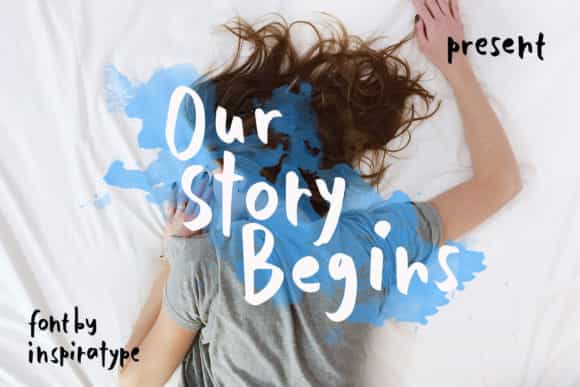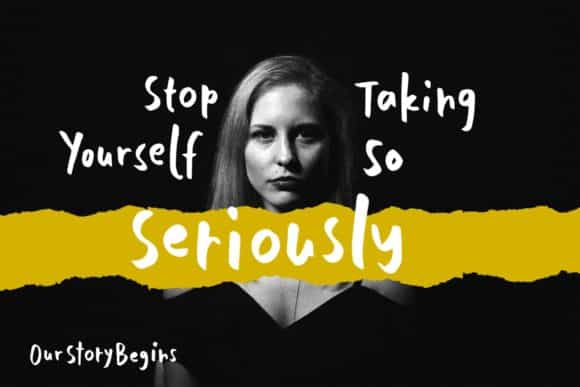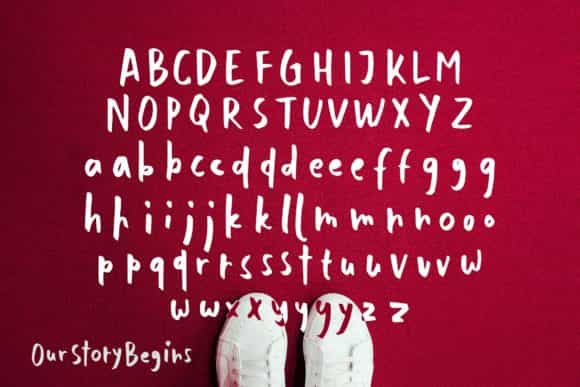
Our Story Begins is a display font that is hand drawn. Inspired by vintage posters. It also has uppercase and lowercase letters numerals, punctuation, and OpenType alternates, ligatures, swashes to assist in the customisation of your designs. For applying on logos, letterheads, posters, clothing, labels and so on.